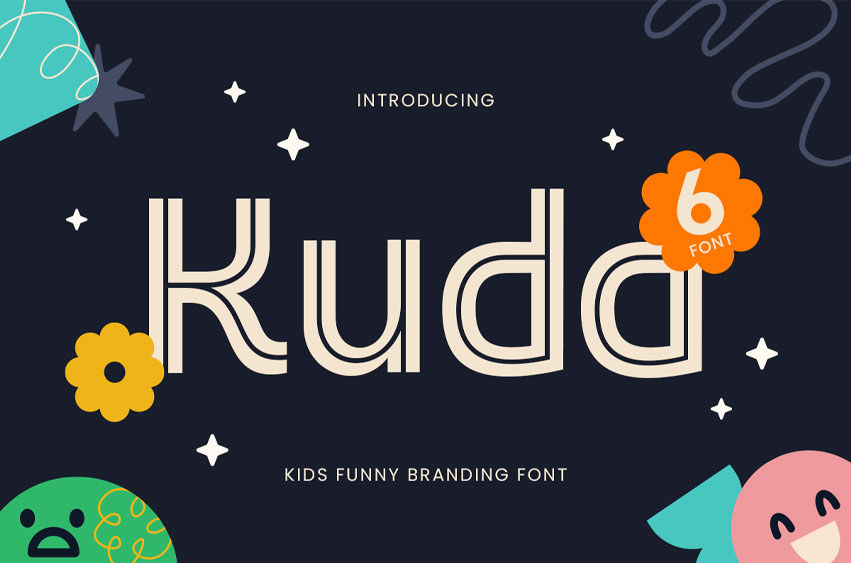
Kuda Font
Kuda Font is a kid-friendly, funny font created to spark joy and imagination in every design. With its bouncy shapes, rounded edges, and cheerful energy, Kuda is perfect for children’s branding, book covers, toys, packaging, and educational materials.
The playful letterforms make text easy to read while keeping it fun and full of personality. It’s designed to appeal to young audiences and the young at heart, offering a delightful tone for both digital and print design.
Bring smiles to your next project with Kuda—the font that turns words into play.
Kuda – Kids Funny Branding Font Features
• Fun and playful character design
• Has ready with 6 Font Styles
• Ideal for kids’ branding, books, toys, and packaging